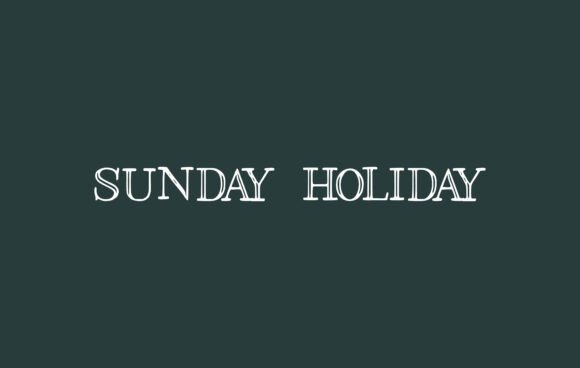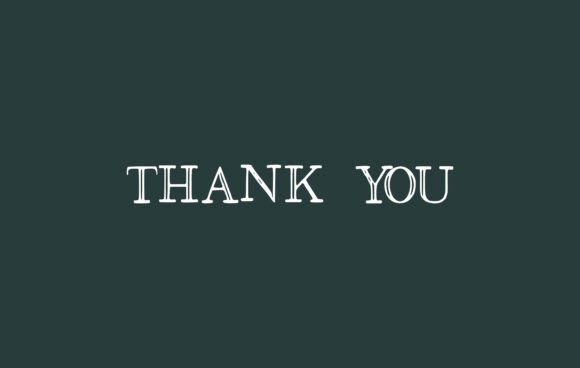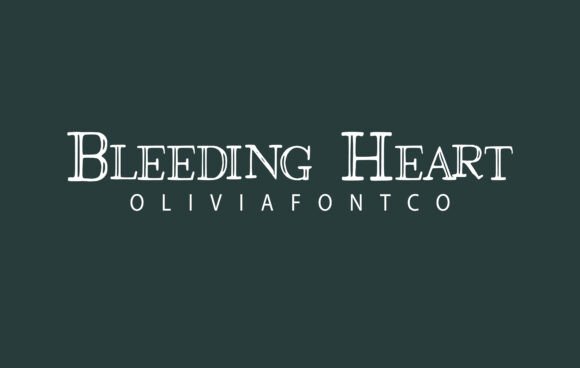
The Bleeding Heart Font: A Romantic Touch for Your Creative Projects
I’ll never forget the time I was working on a wedding invitation design project, and my client asked me to create a custom font that would match the romantic and whimsical feel of their special day. I spent hours scouring the internet for the perfect font, but nothing seemed quite right. That’s when I stumbled upon the Bleeding Heart font, and it instantly became my go-to choice. In this article, I’ll share with you why I fell in love with this font, its features, and how to make the most of it in your creative projects.
An Honest Review of Bleeding Heart Font
What I Love About Bleeding Heart Font
• ✨ Authentic handwritten feel: Bleeding Heart font has a genuine, handwritten look that adds a touch of warmth and personality to any design.
• ✅ Legible and versatile: This font is perfect for both title and body text, making it a great choice for a wide range of design projects.
• 💕 Romantic and whimsical: The font’s romantic touch makes it ideal for wedding invitations, Valentine’s Day cards, and other designs that require a touch of elegance.
While Bleeding Heart font is an amazing choice for many design projects, there are a few things to keep in mind:
• ⚠️ Limited use in formal designs: Due to its handwritten nature, Bleeding Heart font may not be the best choice for formal designs, such as business reports or academic papers.
• 🤔 Some characters may require adjustment: As with any font, some characters may require adjustment to ensure proper spacing and alignment.
The Backstory Behind Bleeding Heart Font
Bleeding Heart font was designed by a talented typographer who wanted to create a font that would capture the essence of romance and whimsy. Inspired by traditional handwritten fonts, the designer carefully crafted each letter to convey a sense of warmth and personality. The result is a font that’s both elegant and playful, perfect for a wide range of creative projects.
Font Name Bleeding Heart Font
Author OliviaFontCo
Q: Is Bleeding Heart font suitable for body text?
A: Yes, Bleeding Heart font is legible and can be used for body text, making it a great choice for designs that require a lot of text, such as blog posts or social media graphics.
Q: Does Bleeding Heart font come with OpenType features?
A: Yes, Bleeding Heart font comes with OpenType features, including glyphs and stylistic alternates, which can be accessed in compatible design software.
Q: Is Bleeding Heart font easy to read?
A: Yes, Bleeding Heart font is designed to be legible and easy to read, making it perfect for designs that require a clear and concise message.